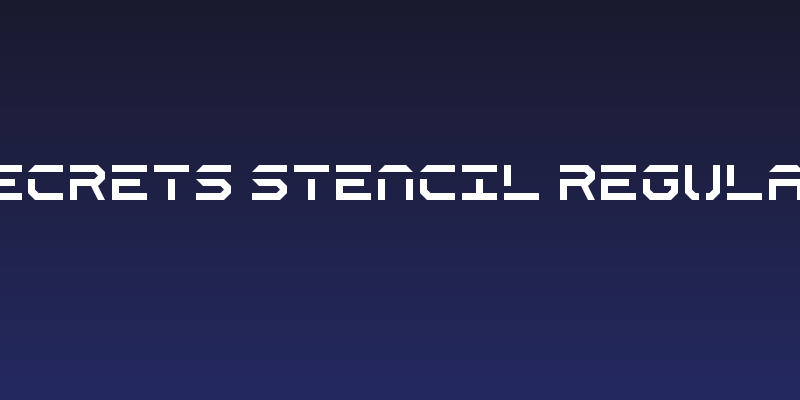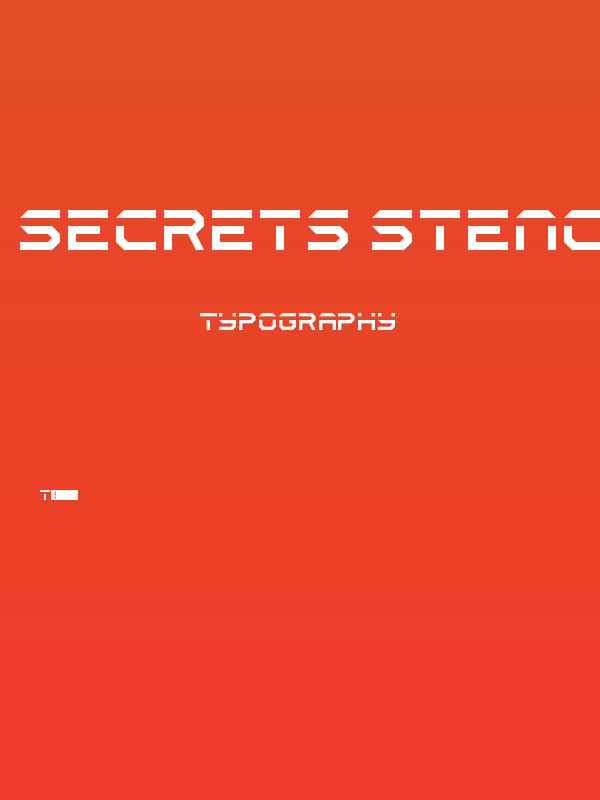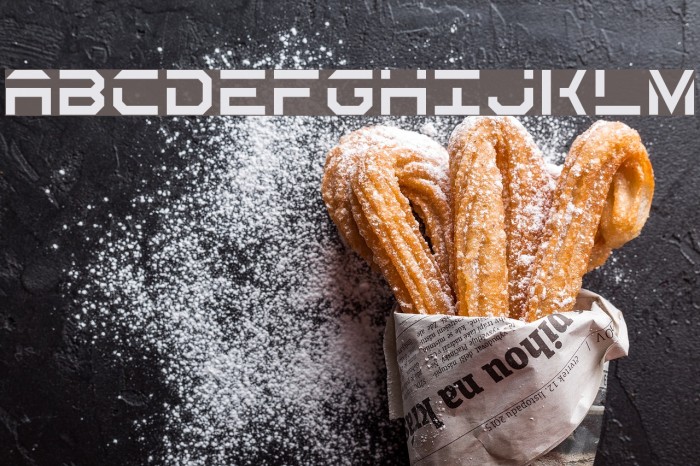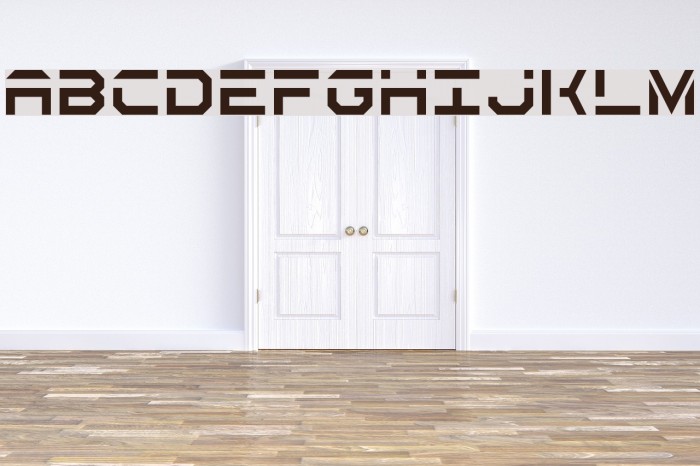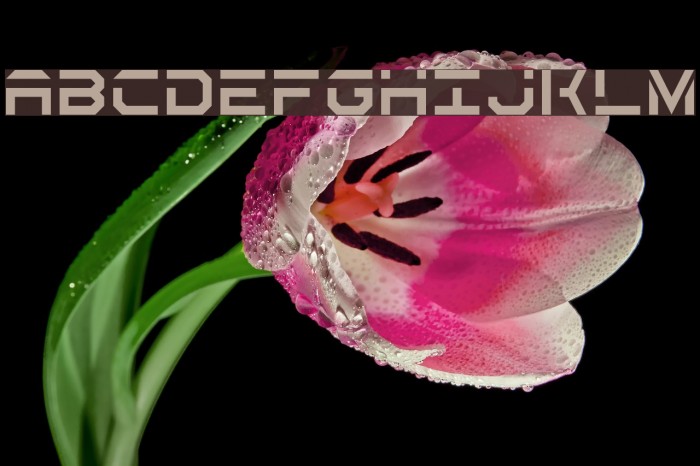
Secrets Stencil Regular Font
Secrets Stencil Regular Description
This font features a bold, geometric stencil design with sharp, angular edges and distinct cutouts that give it a modern, industrial feel. The uppercase letters are uniform in height, with a consistent width that creates a strong visual impact. The characters are designed with a sense of precision and clarity, making them highly legible despite the stencil style. The font's unique cutout patterns add an element of intrigue and complexity, making it suitable for projects that require a bold statement. Its structured appearance is both functional and aesthetically pleasing, ideal for use in branding, signage, and editorial design.
| Use Case | Headlines, Logos, Signage |
| Proposed Projects | Ideal for branding, signage, editorial design, and any project requiring a bold, modern aesthetic. |